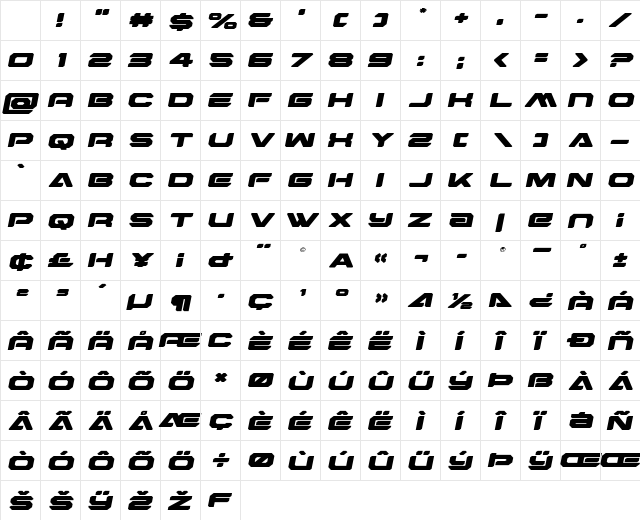
Complete Hyper Viper Expanded Semi-Ital Expanded Semi-Italic glyph index. Displaying only characters natively supported by Hyper Viper Expanded Semi-Ital Expanded Semi-Italic font.
Hyper Viper Expanded Semi-Ital is a composed and adaptable typeface that performs quietly and consistently across a wide range of design contexts. The slanted form adds forward momentum and visual energy.